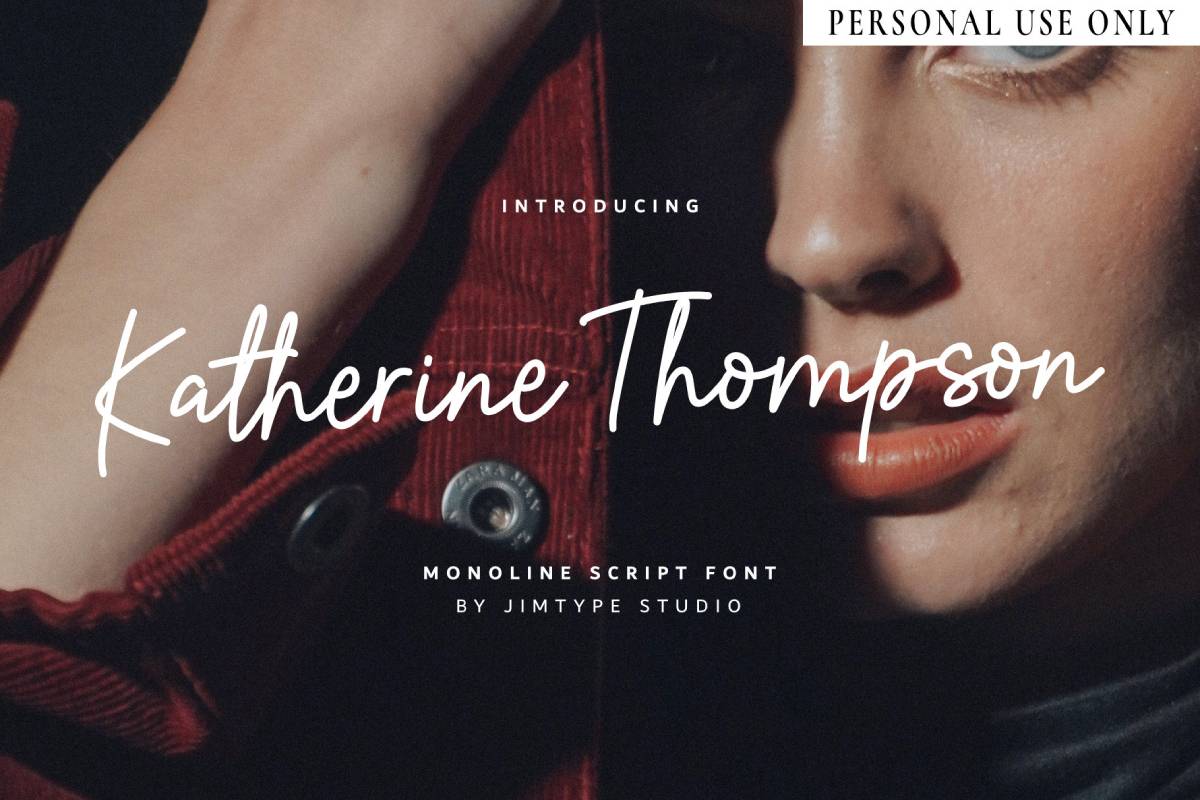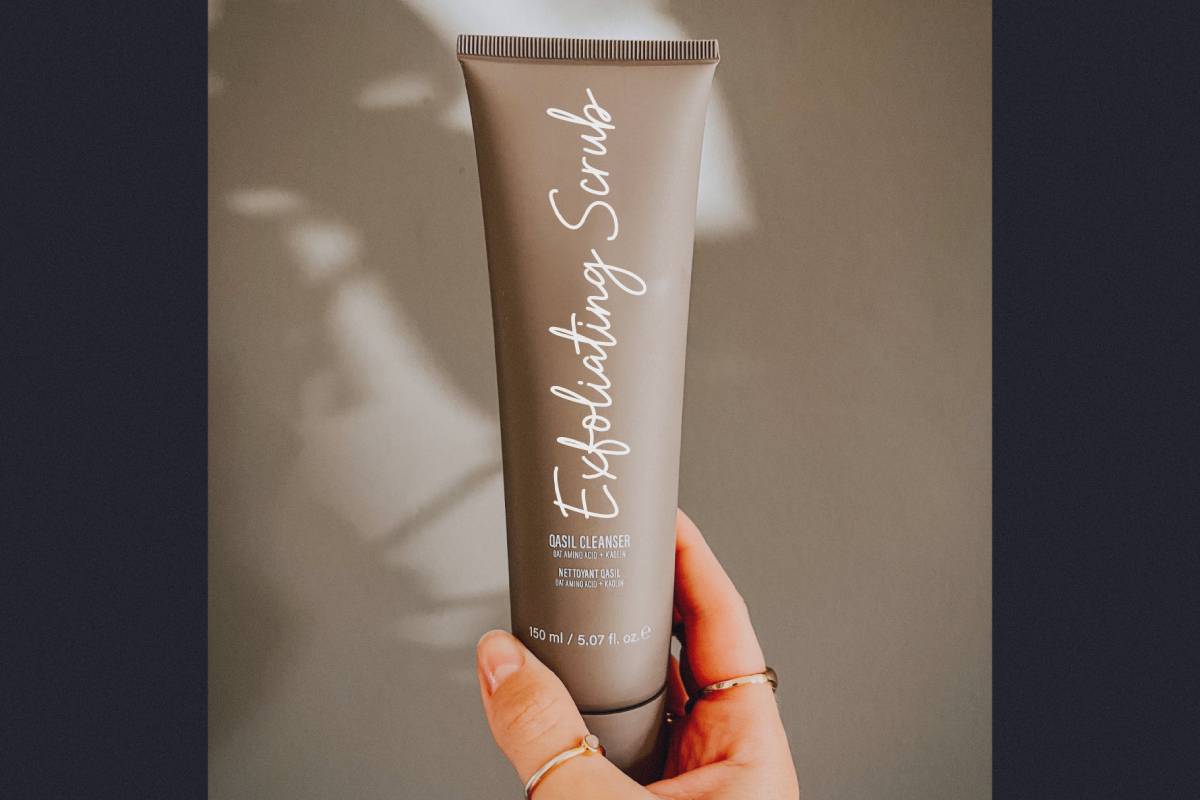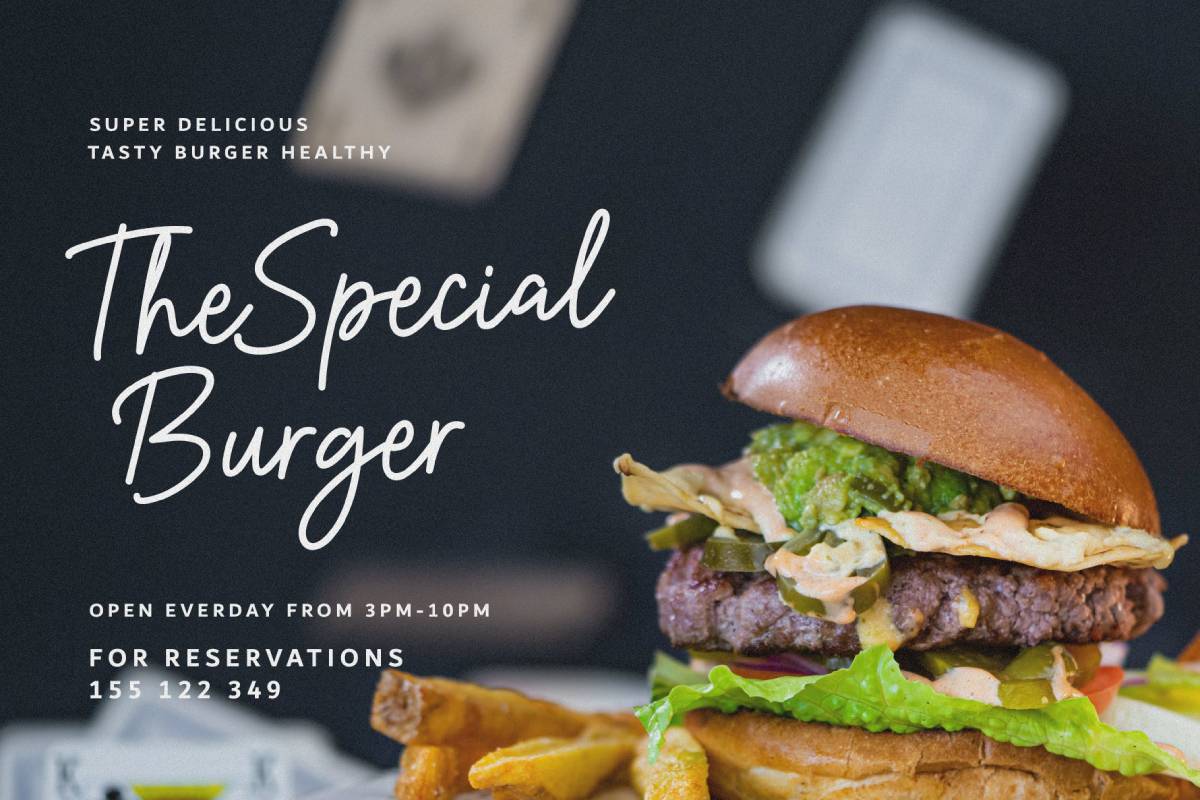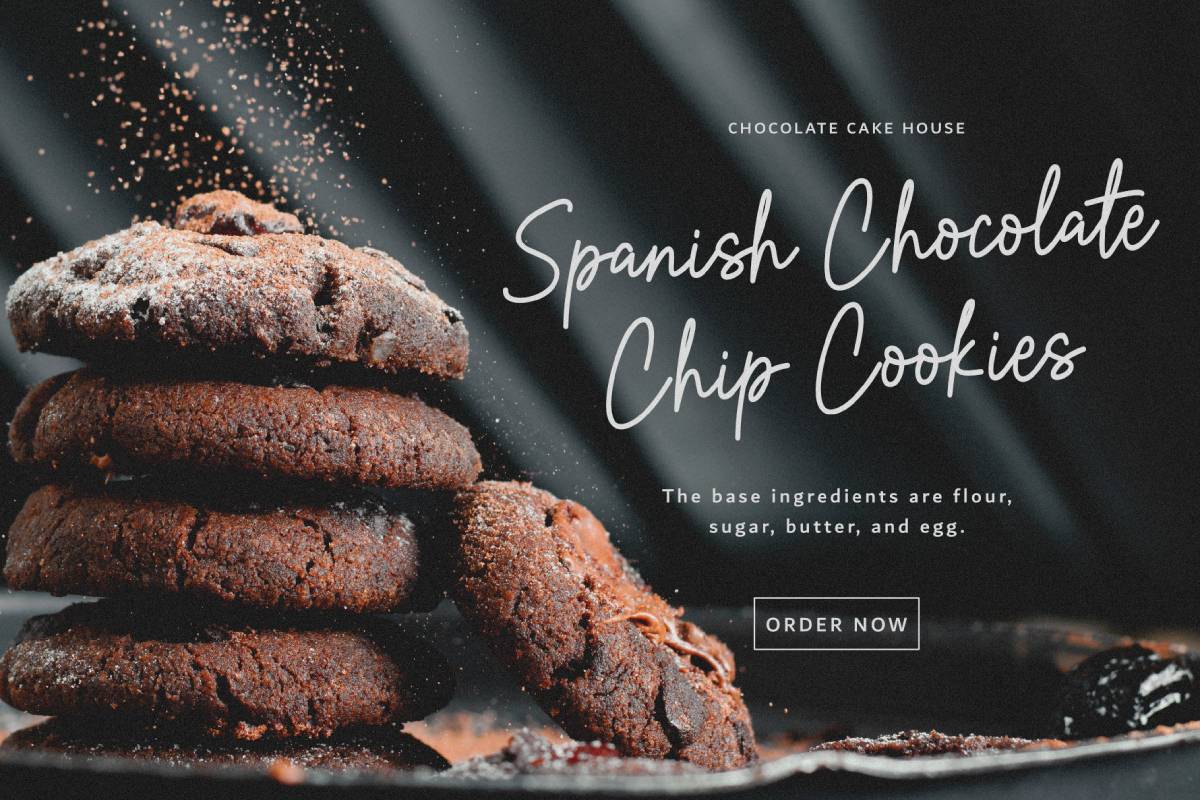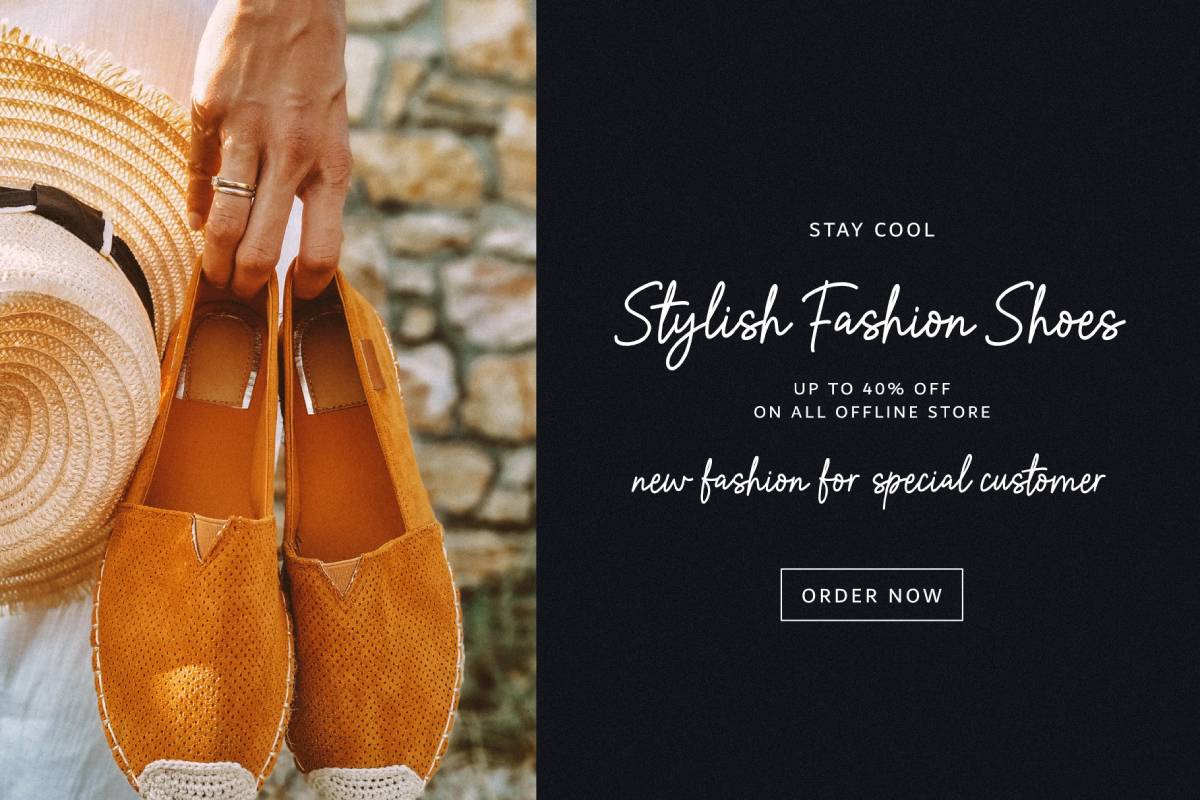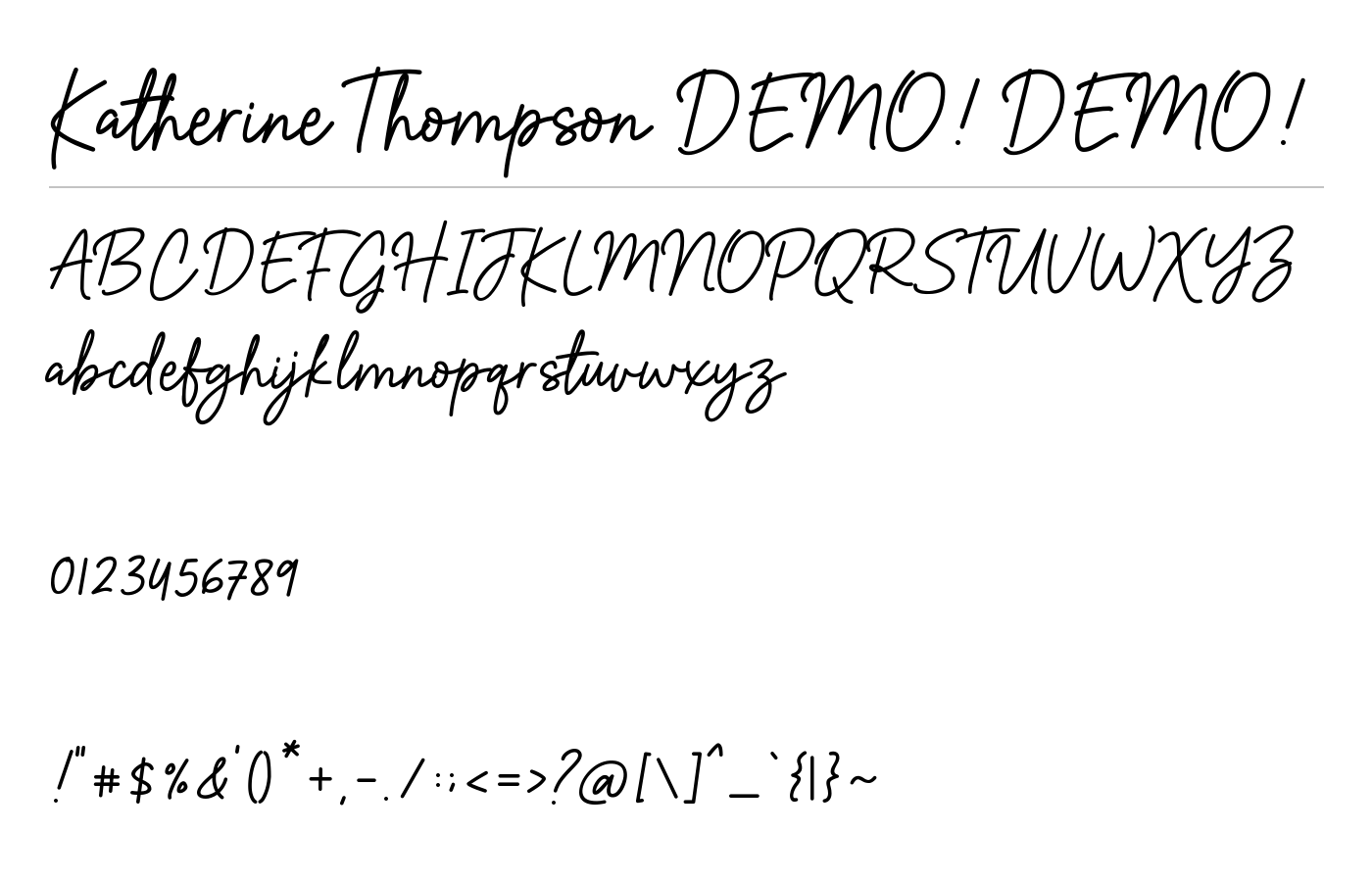
Katherine Thompson Font is a lively and elegant handwritten script that combines casual charm with refined style. Its slender, slightly slanted letterforms and smooth, flowing strokes create a friendly yet sophisticated feel, making it ideal for personal branding, invitations, and creative projects where warmth and personality are key. This font’s versatility shines in both headlines and short text, offering a modern, approachable touch that captures attention without overwhelming the design.
Katherine Thompson Font
About Katherine Thompson Font
| Font family | Katherine Thompson Font |
| Designer | Jimtype Studio |